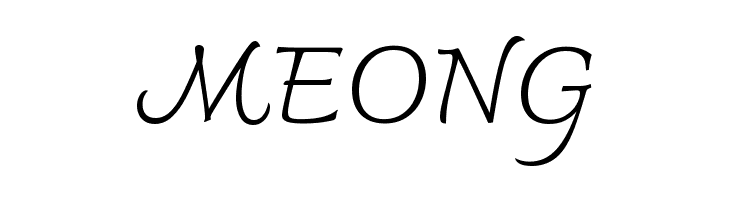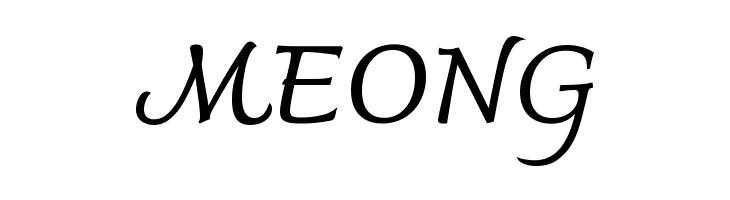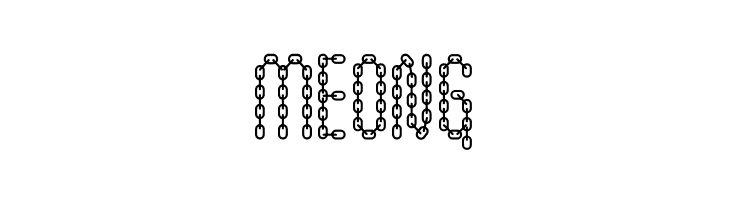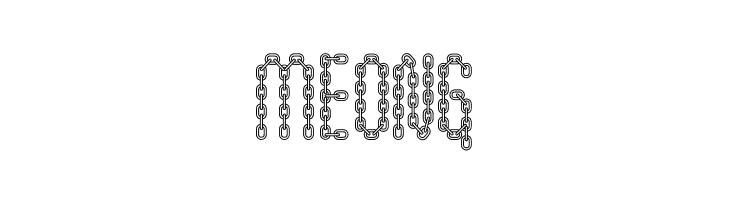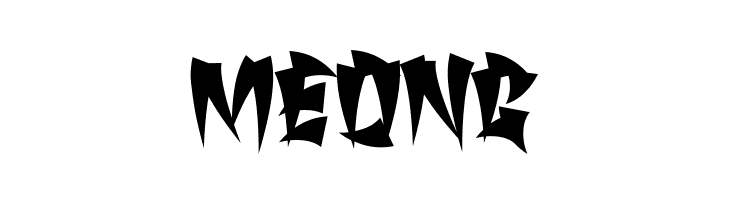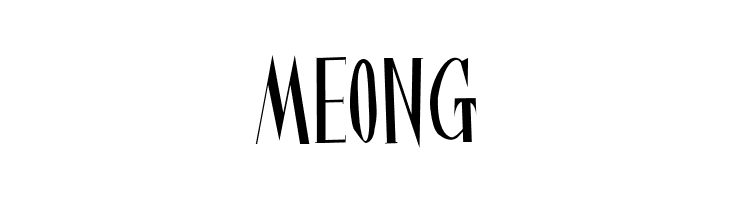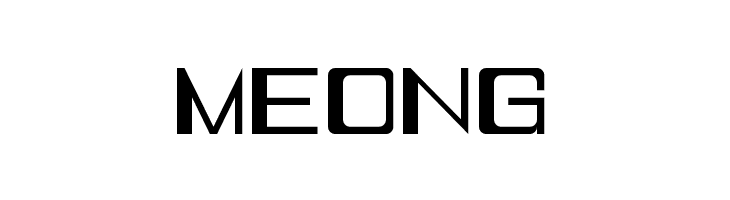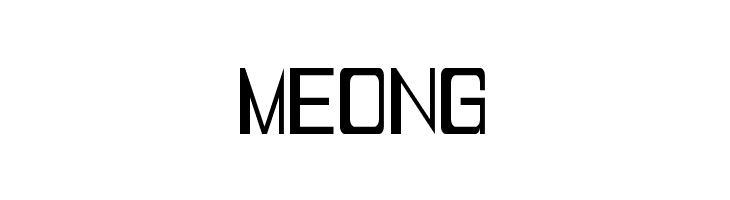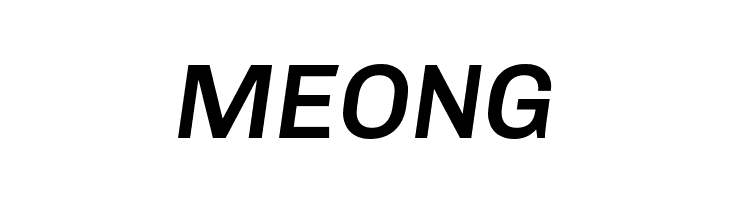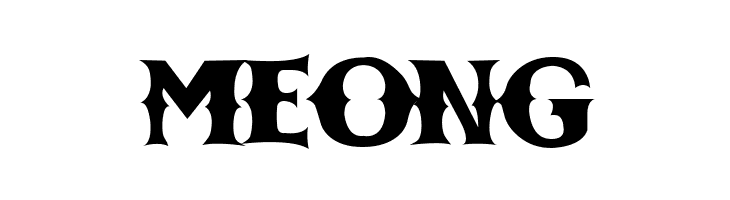
A bold, edgy font with tribal-like cut-out designs and sharp angles.
A decorative font with a celestial, constellation-inspired design.
A decorative font with characters made of interconnected chain links.
A decorative font with characters designed as chain links, offering a bold and industrial look.
A modern, elegant sans-serif font with clean lines and balanced proportions.
A bold, modern font with a clean, geometric design.
A modern, bold, and italicized font with medium contrast and a sleek, elegant style.
A sleek, elegant italic font with thin strokes and modern appeal.
An elegant, flowing script font with a modern twist and medium contrast.
A bold, angular display font with a graffiti-inspired style.
A bold, jagged font with a woodcut-inspired, energetic style.
A decorative font with Victorian-inspired illustrations integrated into each character.
A playful, handwritten font with smooth, flowing curves and a casual style.
A bold, playful font with rounded edges and a hand-drawn appearance.
A bold, elegant script font with flowing, cursive letterforms.
A graceful script font with a flowing, cursive style.
An ornate, decorative font with intricate floral embellishments.
A classic serif font with elegant, thin strokes and a timeless appearance.
A bold, playful font with a chemical theme and bubbly, irregular shapes.
A bold, retro-inspired font with thick, rounded letterforms ideal for nostalgic designs.
A casual, friendly handwritten font with smooth, rounded strokes.
A tall, narrow font with high contrast and elegant, modern design.
A modern, extra bold sans-serif typeface with a strong and assertive presence.
A bold and italicized typeface with a modern and dynamic style.